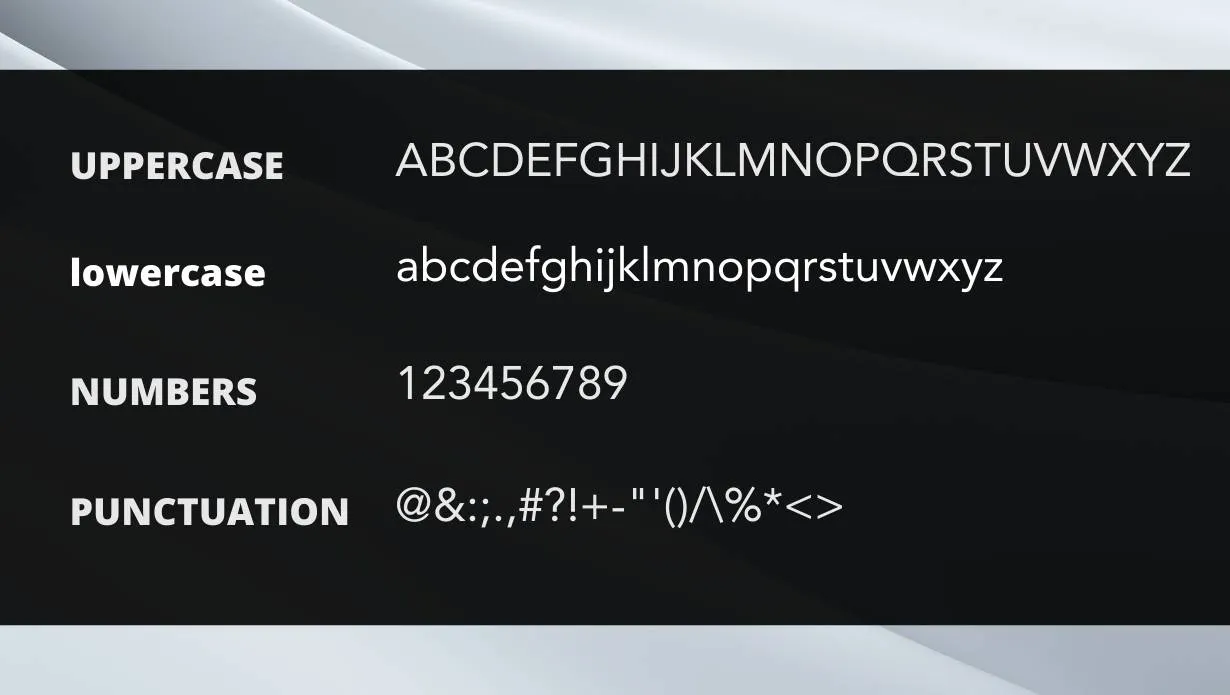
Avenue T Font is a sans serif typeface that was designed by Type Associates in 1958. The design is based on Akzidenz-Grotesk and features a higher x-height and tighter letter spacing than its predecessor.
View of Avenue T Font
Avenue T Font Info
| Name | Avenue T Font |
| Designer | Type Associates |
| Style | Sans Serif |